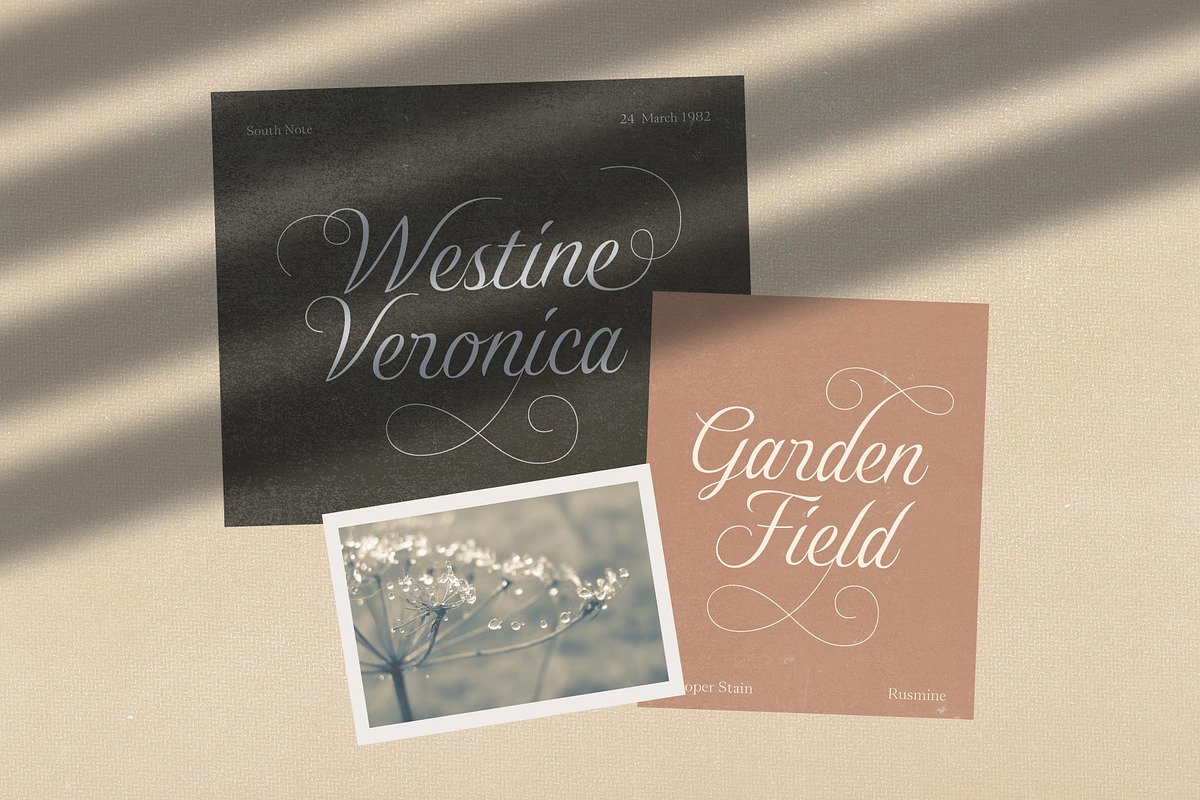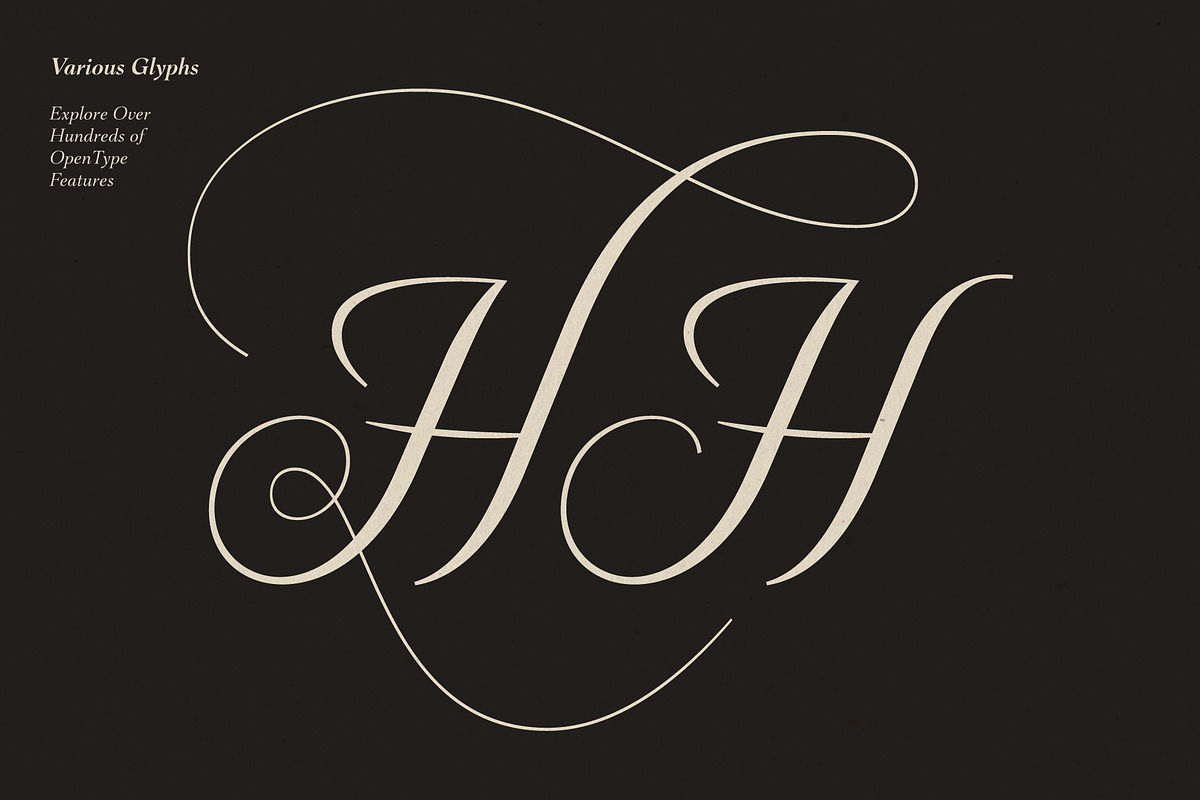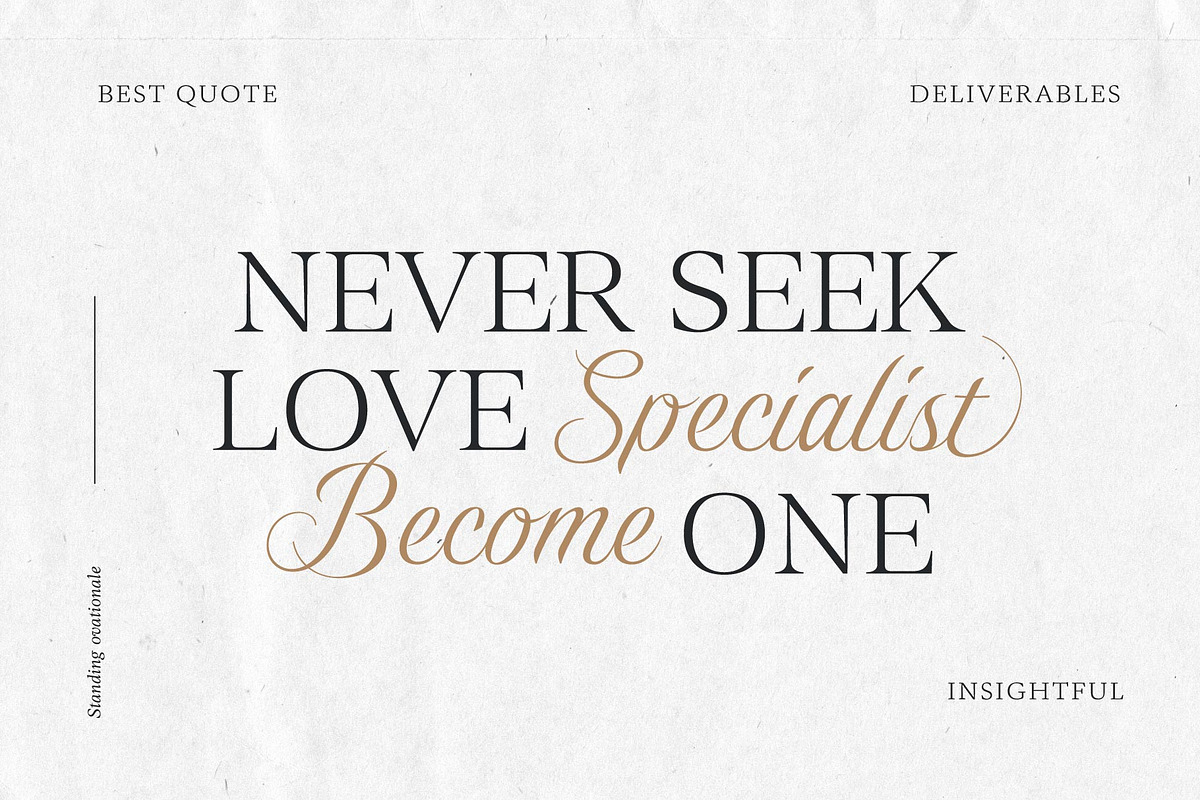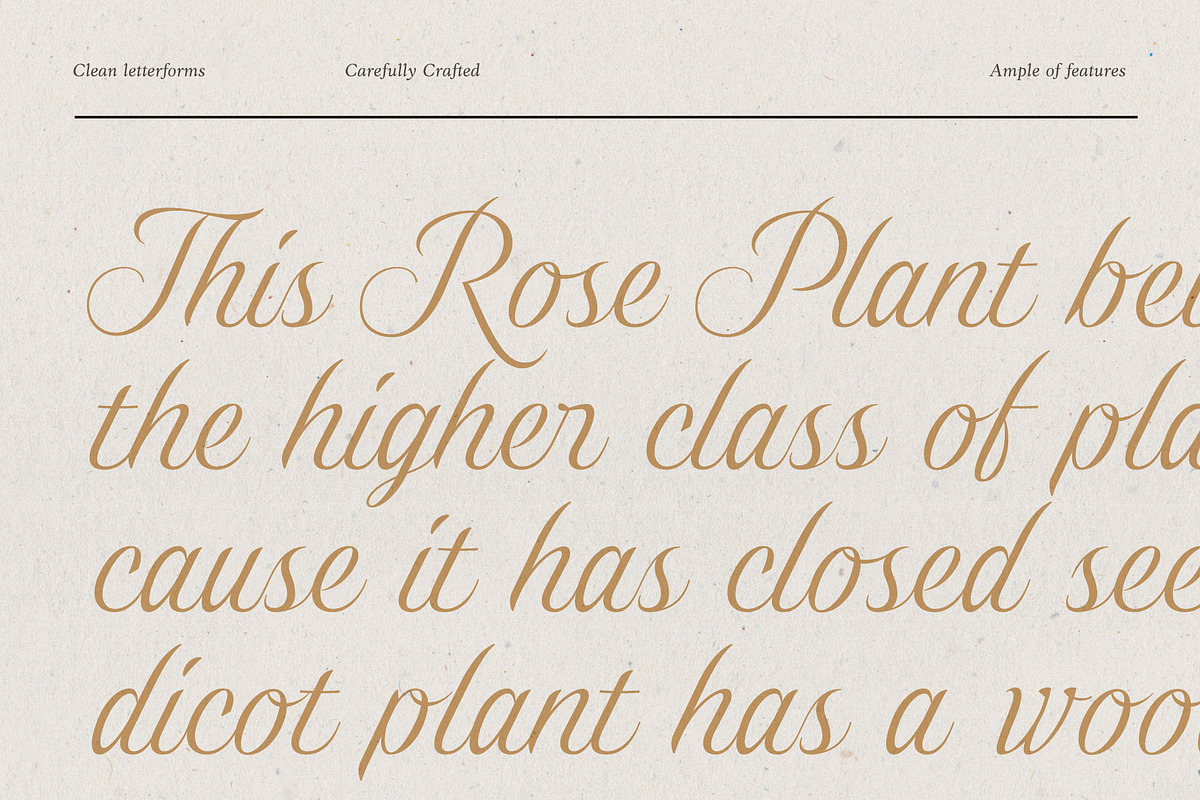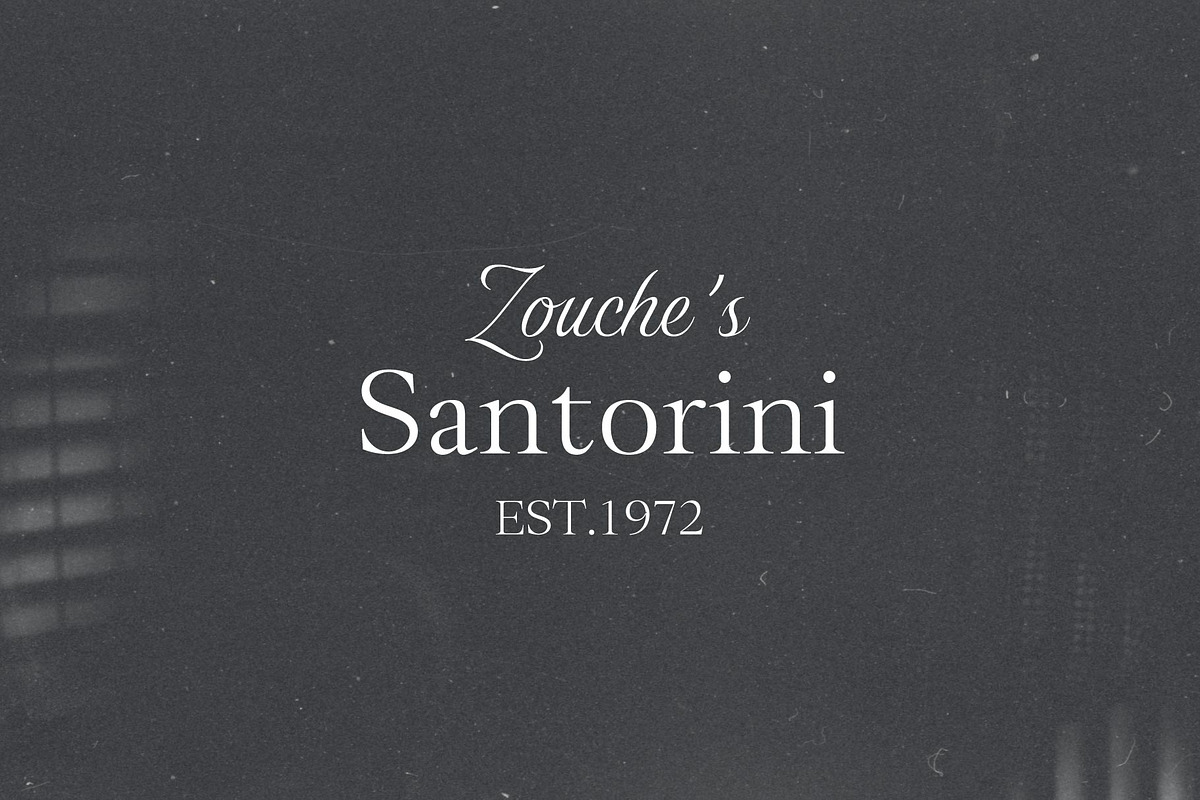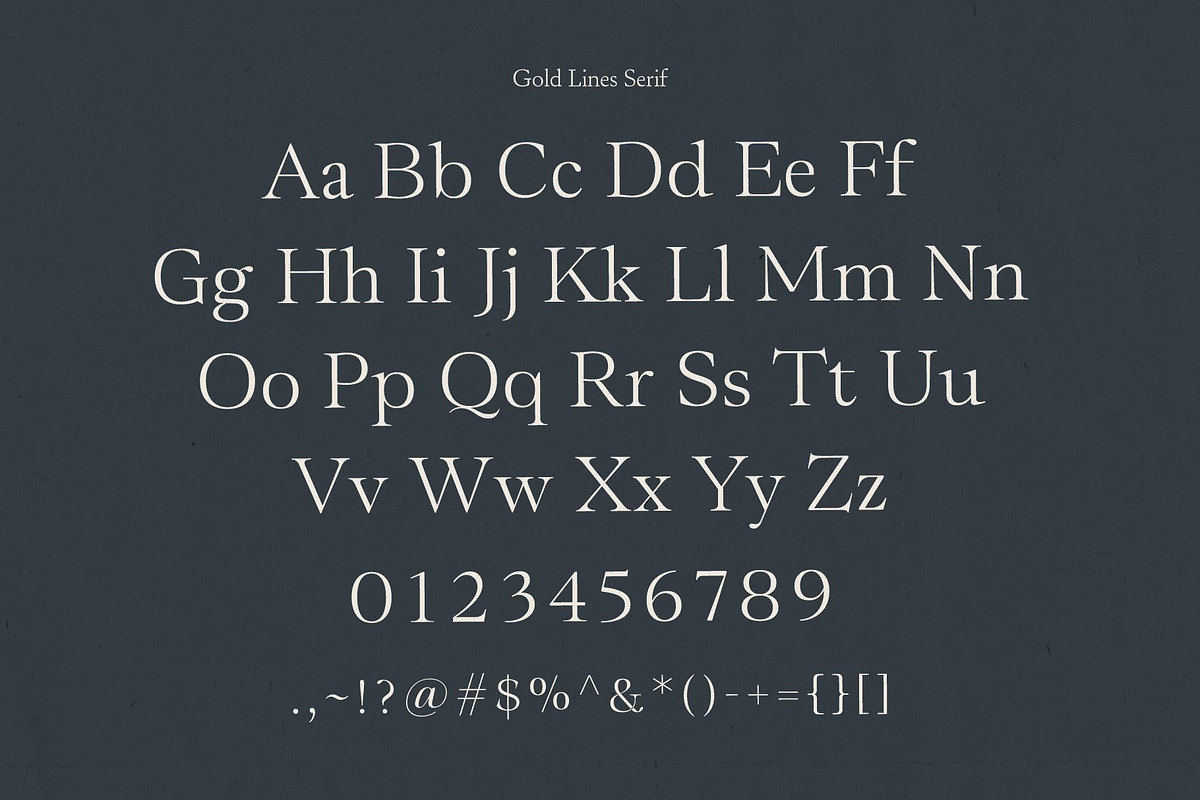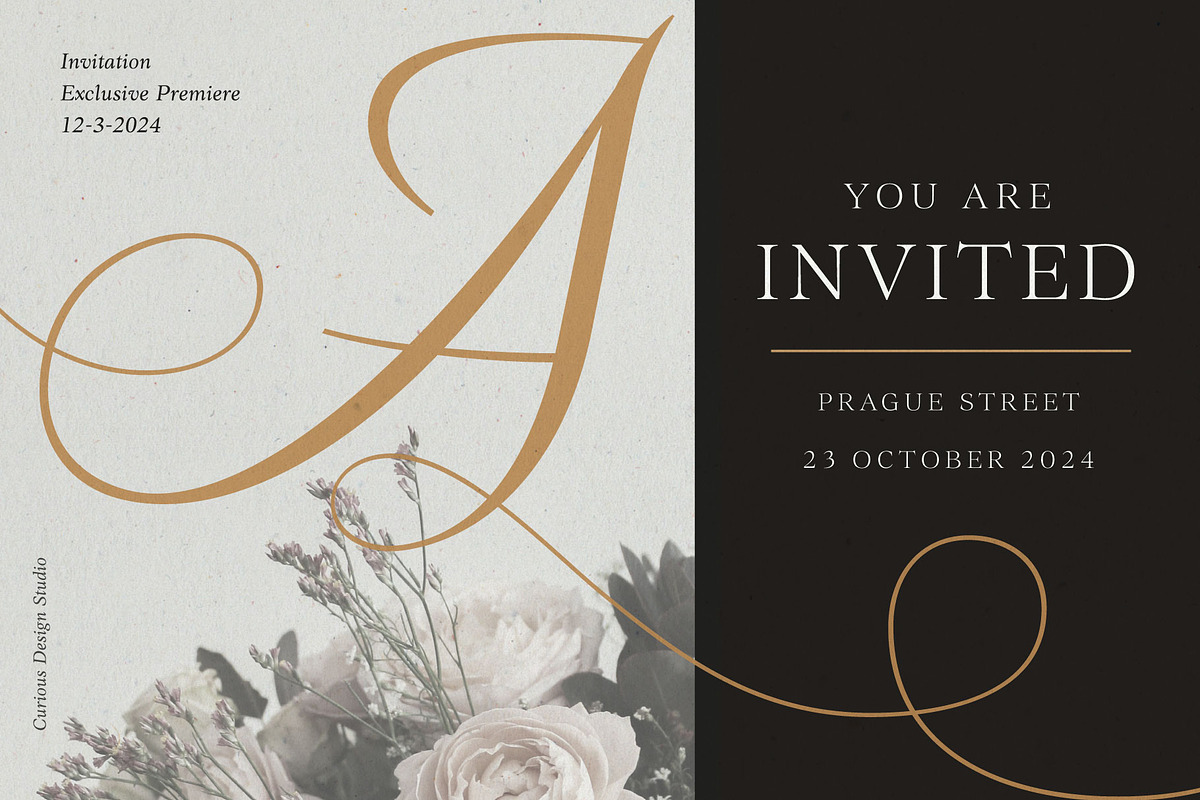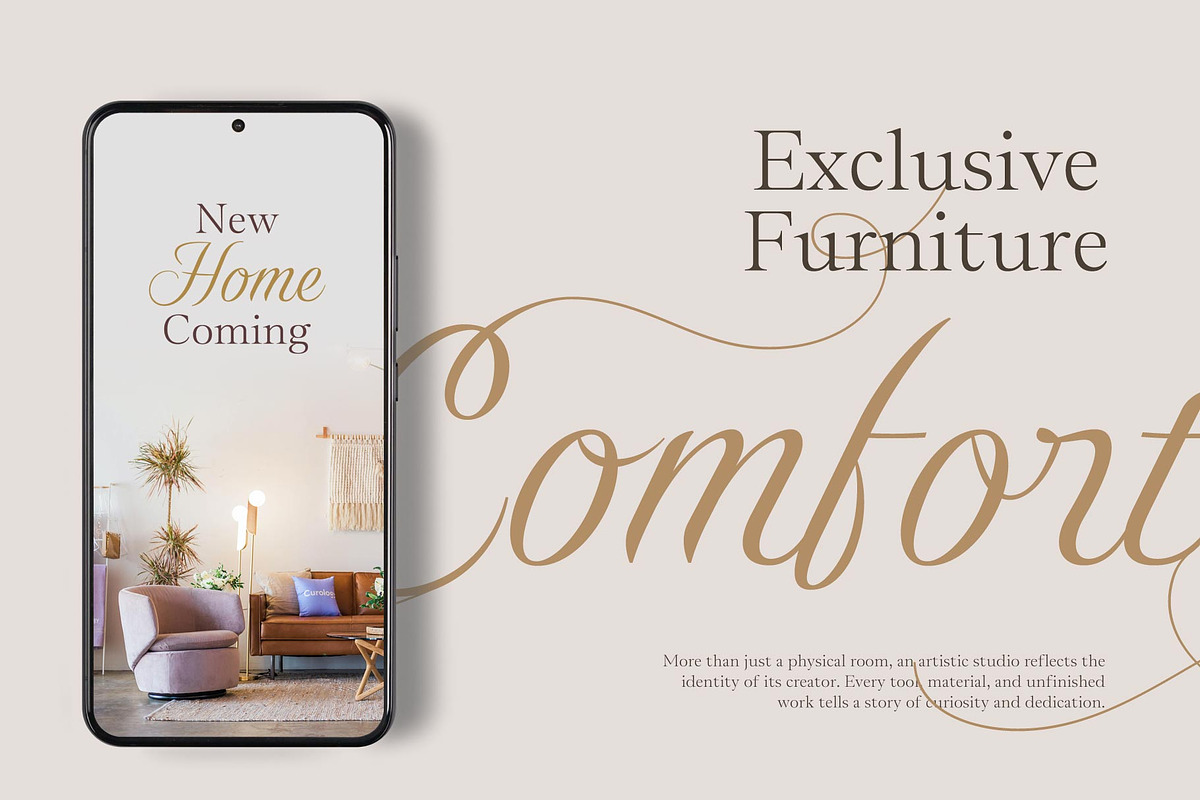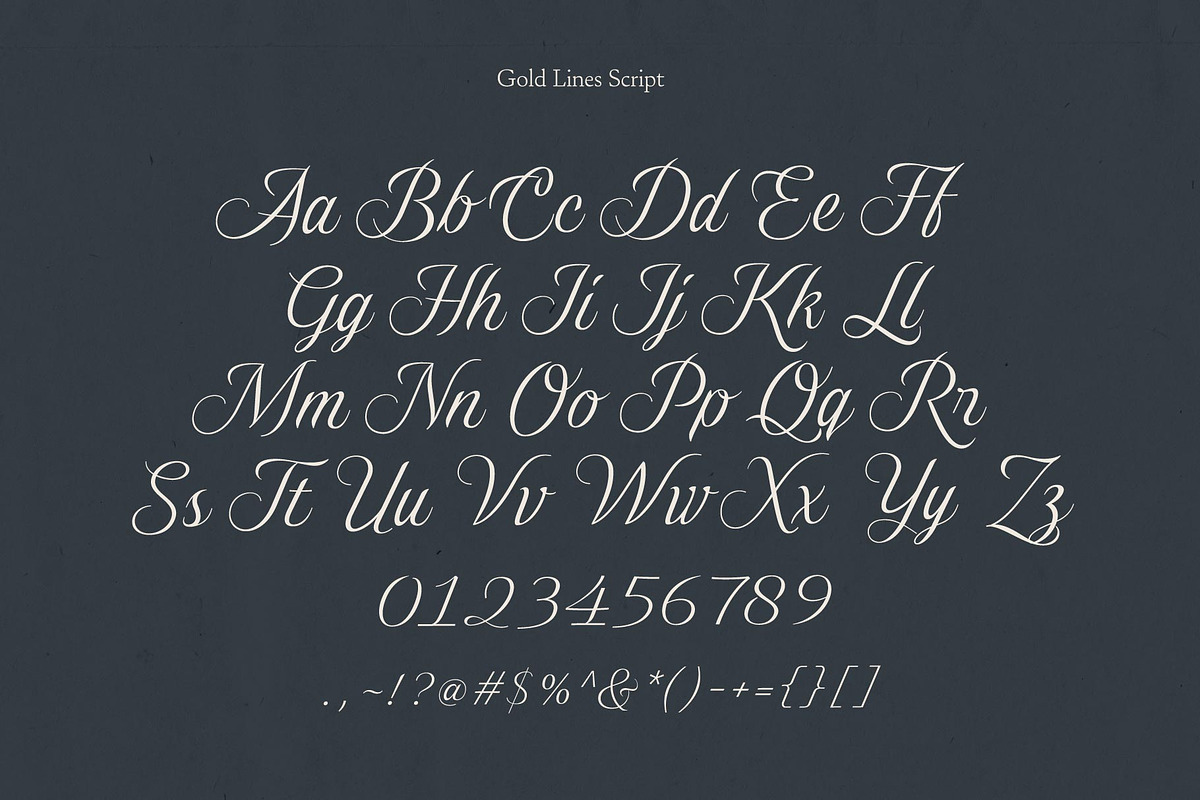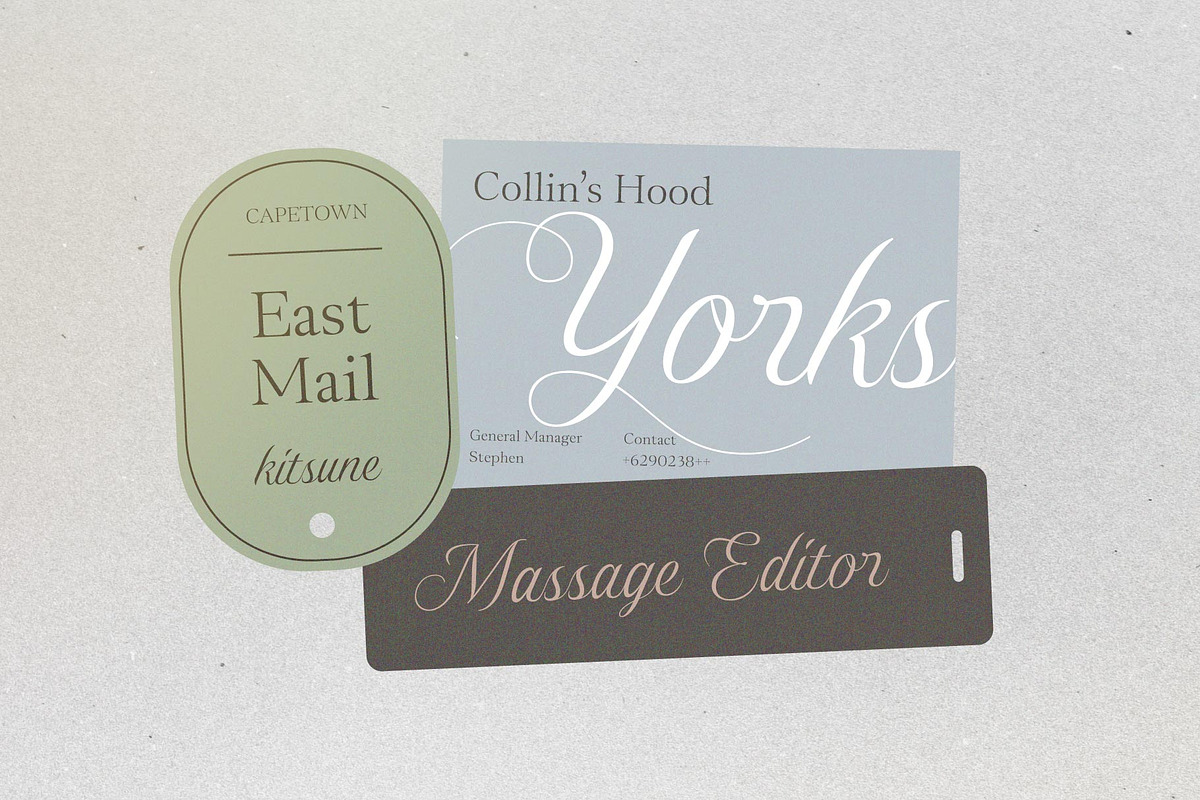
Gold Lines; Elegant Font Duo
Introducing Gold Lines, an enchanting font duo consisting of a graceful script and a timeless serif. This elegant pairing exudes beauty, charm, and a touch of luxury that will captivate any audience. With its intricate details and flowing lines, the script font adds a feminine and delicate allure to your designs, while the serif font brings a sense of classic sophistication.
Gold Lines offers a plethora of OpenType features, allowing you to enhance your typography with ligatures, alternate characters, and swashes. This wealth of options provides endless possibilities to create unique and stunning designs. Whether you’re designing headers, titles, or even crafting an exquisite website, Gold Lines is the perfect choice to elevate your project to new heights. Their versatility makes them well-suited for a wide range of design and creative projects, enabling you to infuse a touch of sophistication and allure into branding, advertisements, packaging, and various other creative endeavors.